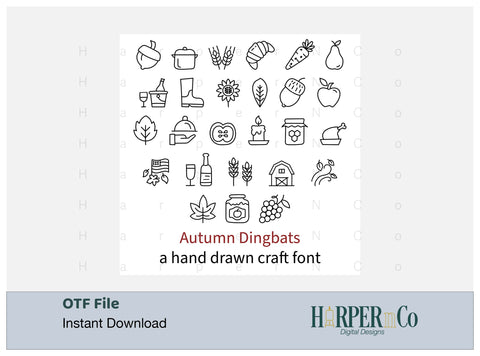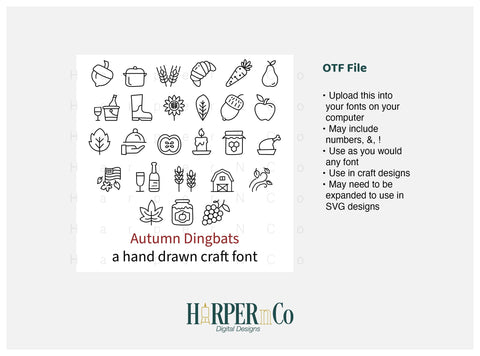
Autumn Dingbats, Hand drawn dingbat font
This is a super cute hand drawn dingbat font to customize all your crafts. OTF File
Fun for autumn and Thanksgiving craft projects
This font will be perfect for all your Craft projects! Use it to make custom shirts, keychains, gifts, tags, bags, and whatever else you can think of!